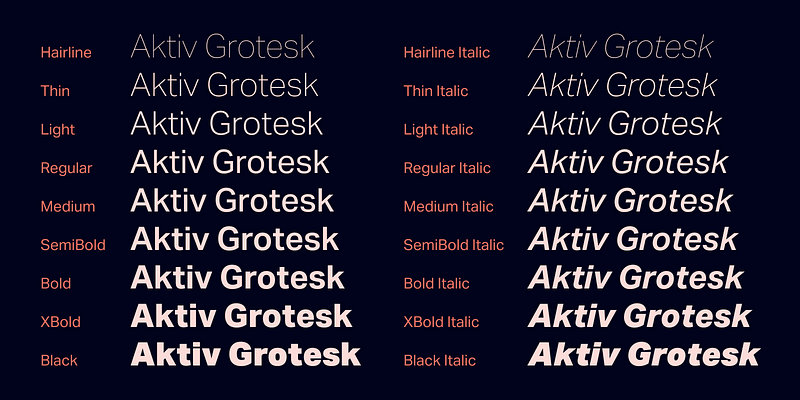
Aktiv Grotesk is a clean, modern sans-serif font that works well in everyday design projects. If you’re doing branding, websites, or UI work and want a font that feels safe but not boring, this one fits easily.
It’s designed by the Dalton Maag foundry, so the font quality is solid and consistent across all weights. Aktiv Grotesk doesn’t try to stand out too much, and that’s actually its strength. It keeps the design clean and professional, which is why many designers use it for real client work.
What Makes Aktiv Grotesk Special?
Aktiv Grotesk is a modern sans-serif that works well in everyday design projects. It takes inspiration from classic fonts like Helvetica and Akzidenz-Grotesk, but feels more balanced and updated.
The font stays clean and neutral, which makes it easy to use in professional work. It offers enough weights and styles to build clear hierarchy, supports many languages, and stays readable across branding, websites, UI, and print—without taking attention away from the design.
Who Designed It (and Why It Matters)
Aktiv Grotesk isn’t made by just one designer. It’s a team effort by the type designers at Dalton Maag. Because of that, the font feels well thought out—every weight feels usable, and nothing looks random.
Dalton Maag is a well-known type foundry that has been around since the early 90s. They focus on practical, high-quality fonts, and their work is used by big brands like Airbnb, BBC, Amazon, Uber, and Netflix. That kind of real-world use says a lot about how reliable their fonts are.
How Designers Use Aktiv Grotesk
Aktiv Grotesk is trusted by many designers because it works well in real client projects. Its neutral style makes it a safe choice for branding and identity work, especially when the design needs to stay relevant for a long time.
The font is easy to read, which helps when using it for both headlines and body text in editorial layouts.
In a Nutshell
If you need a modern sans-serif that just works, Aktiv Grotesk is worth considering. It keeps the clarity of classic grotesque fonts but feels more updated and usable today.
The font works equally well for print, web, and branding projects, which makes it a solid choice for long-term design work.